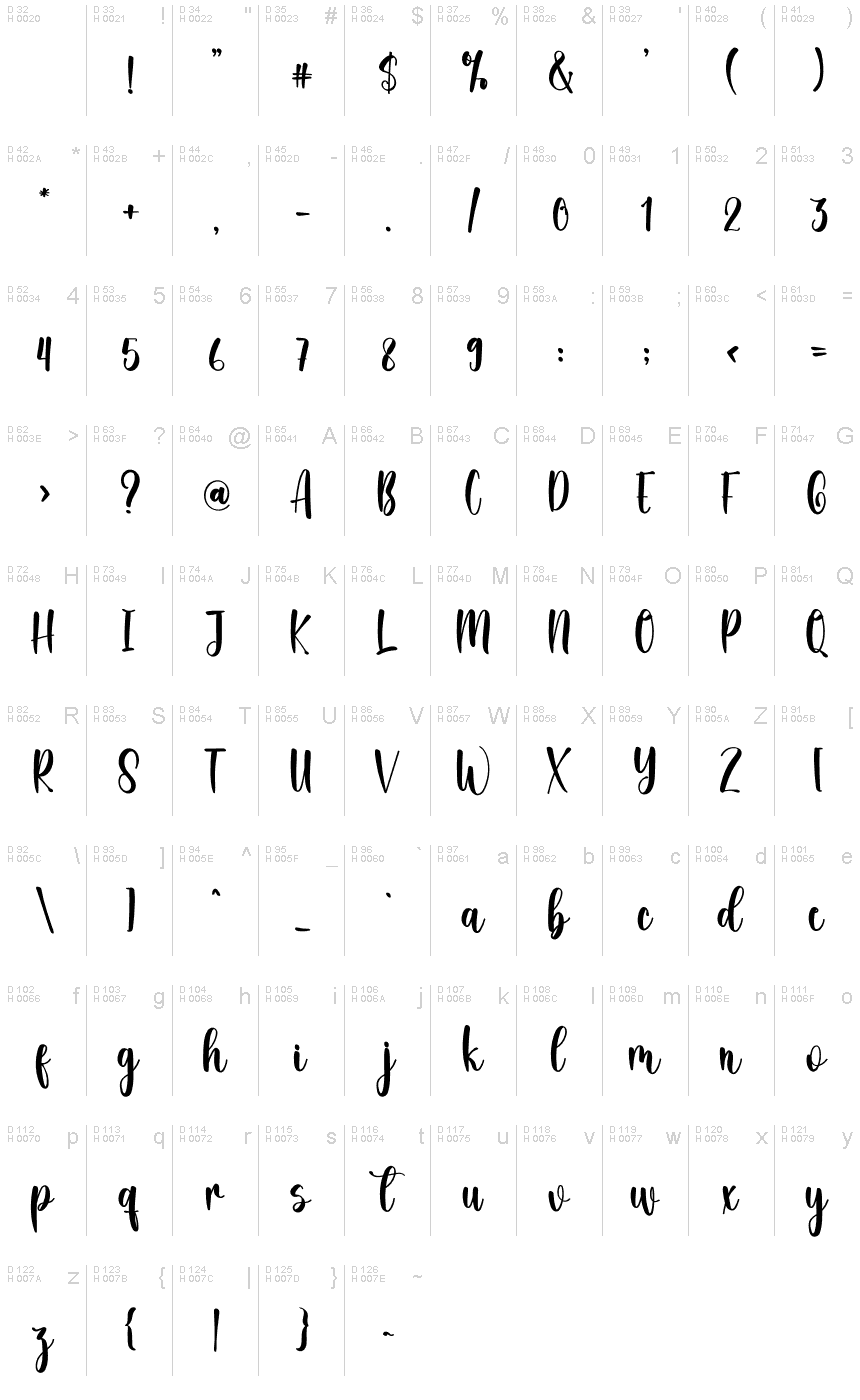
Ballondor
Ballondor, a bold and narrow handwritten font designed by Inermedia Studio, is perfect for projects needing an elegant yet modern touch. It's ideal for creating logos, wedding invitations, holiday cards and other creative designs.